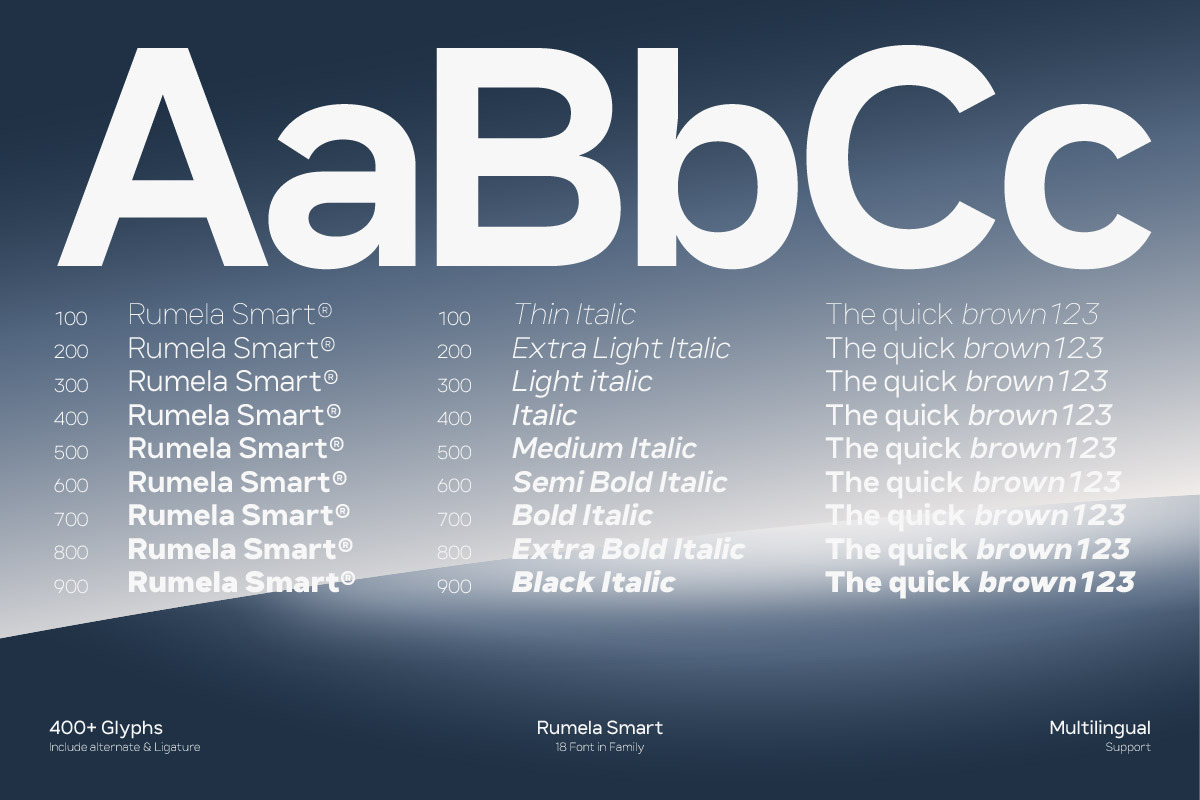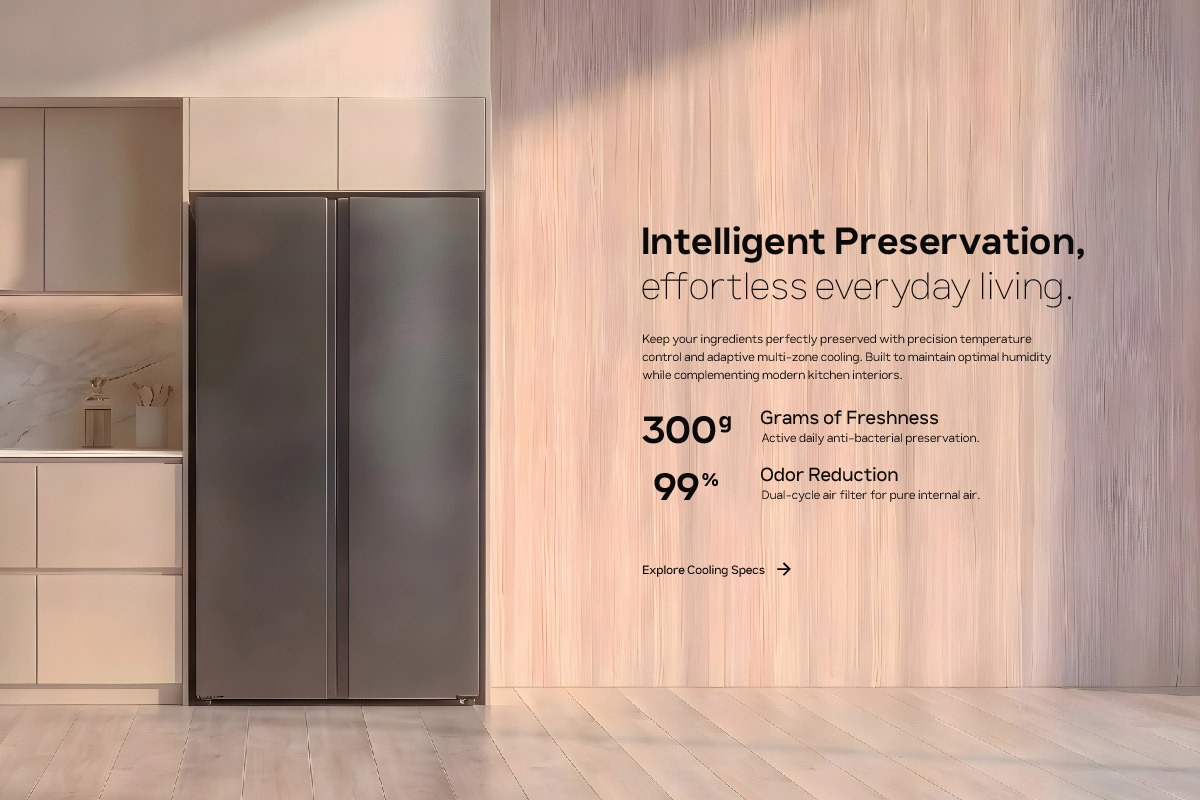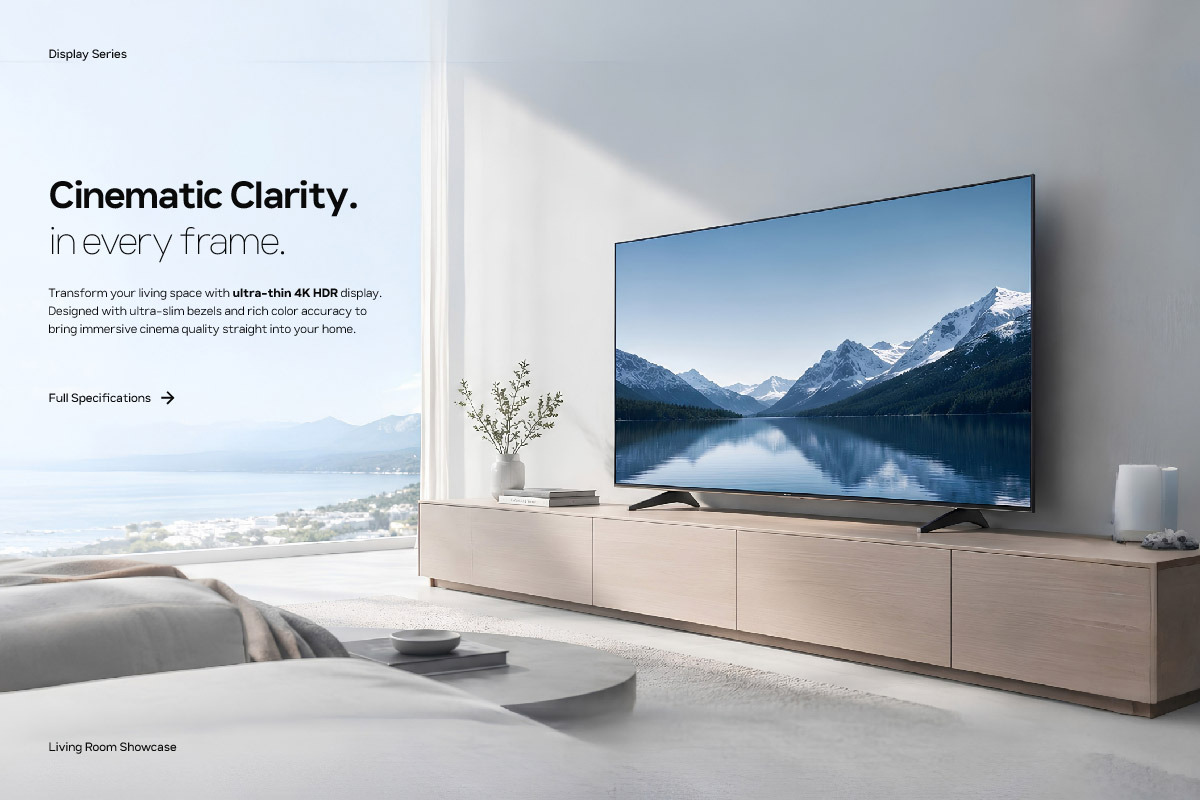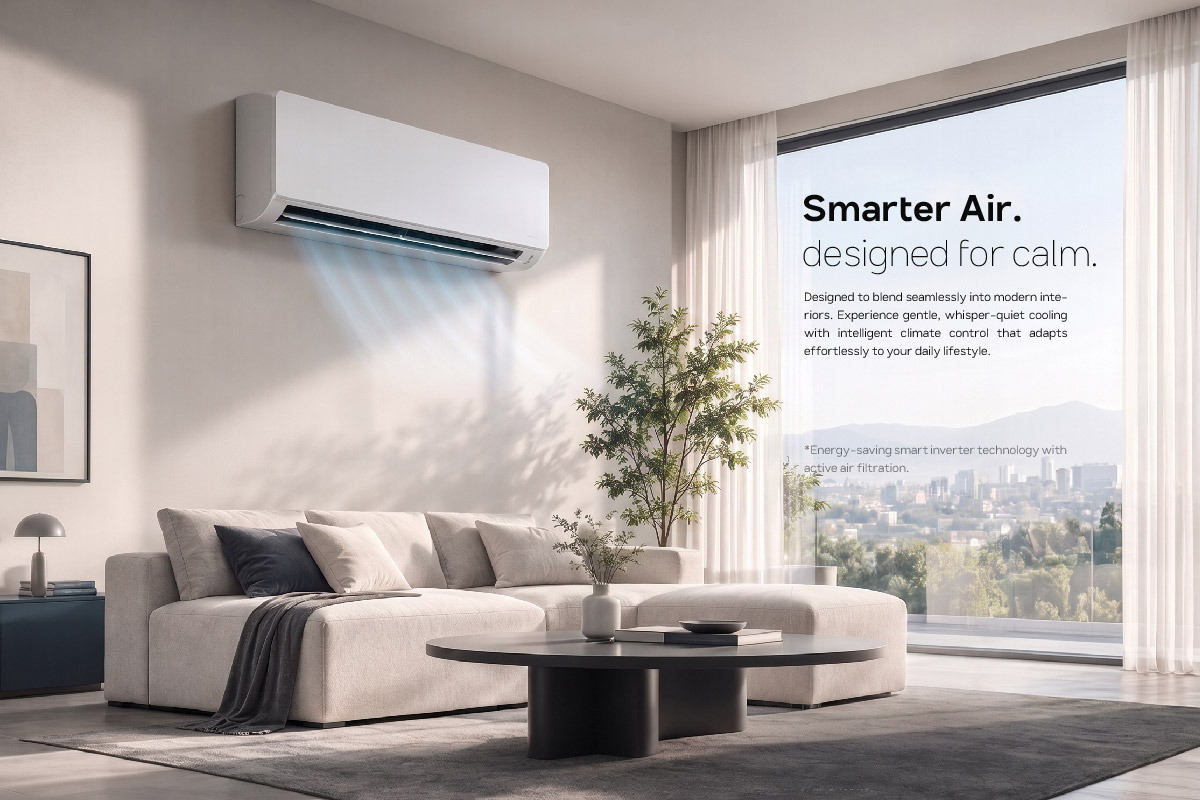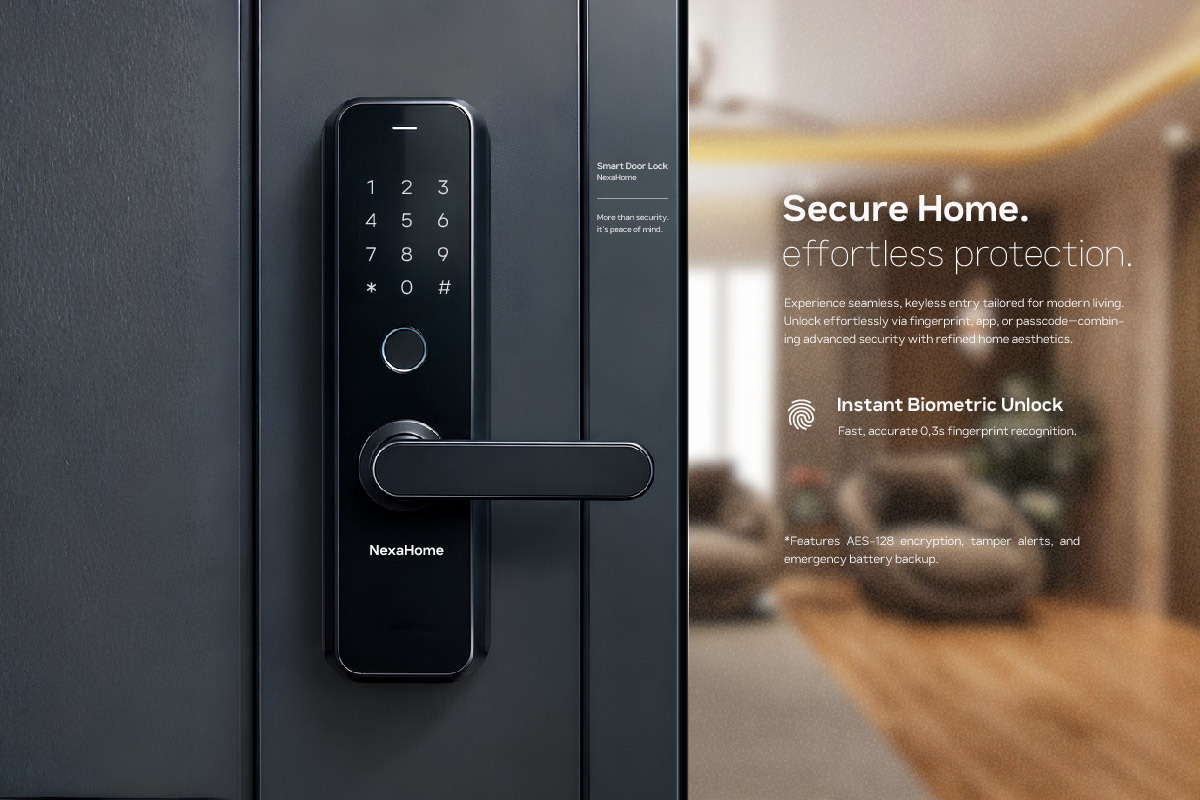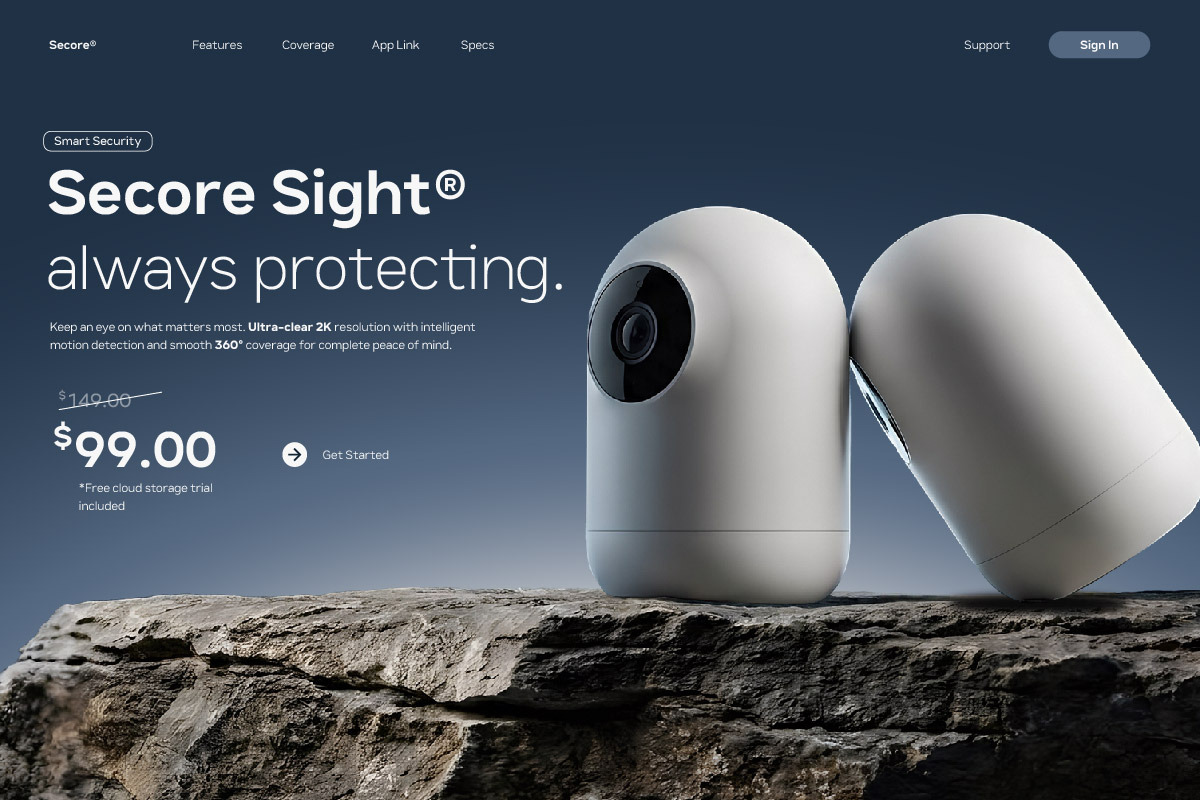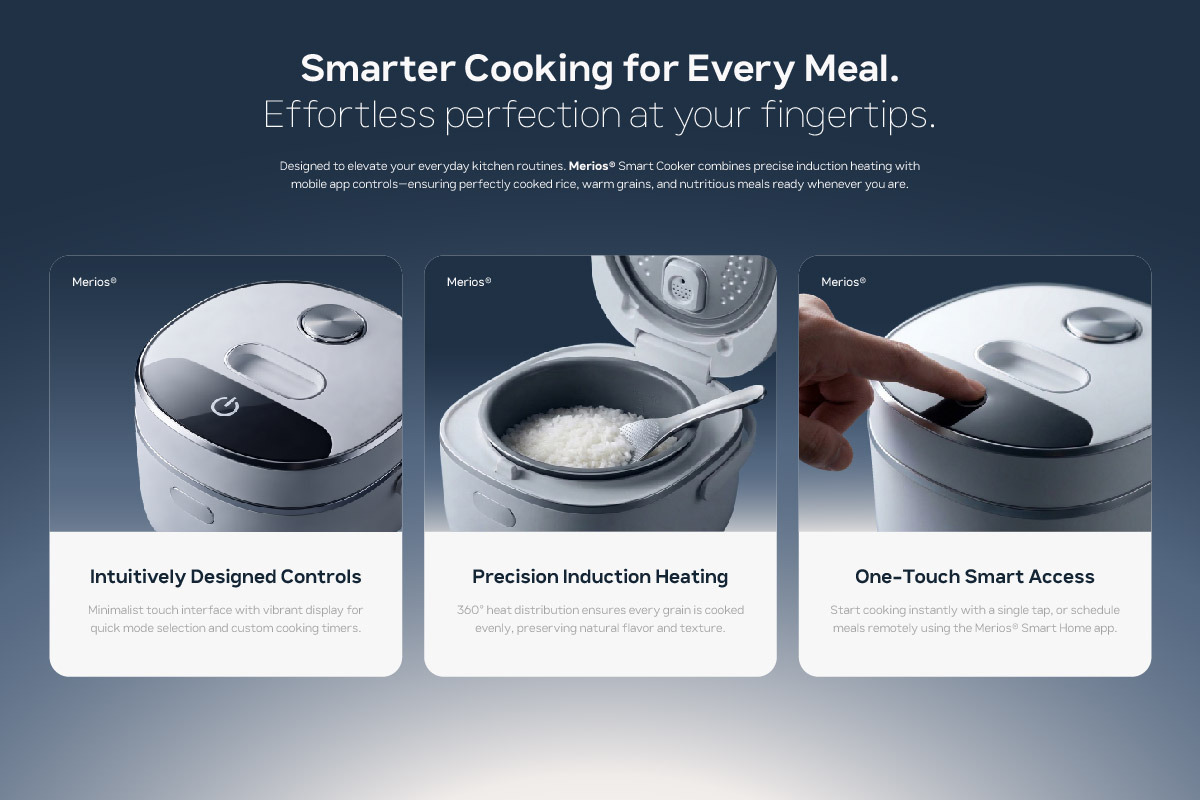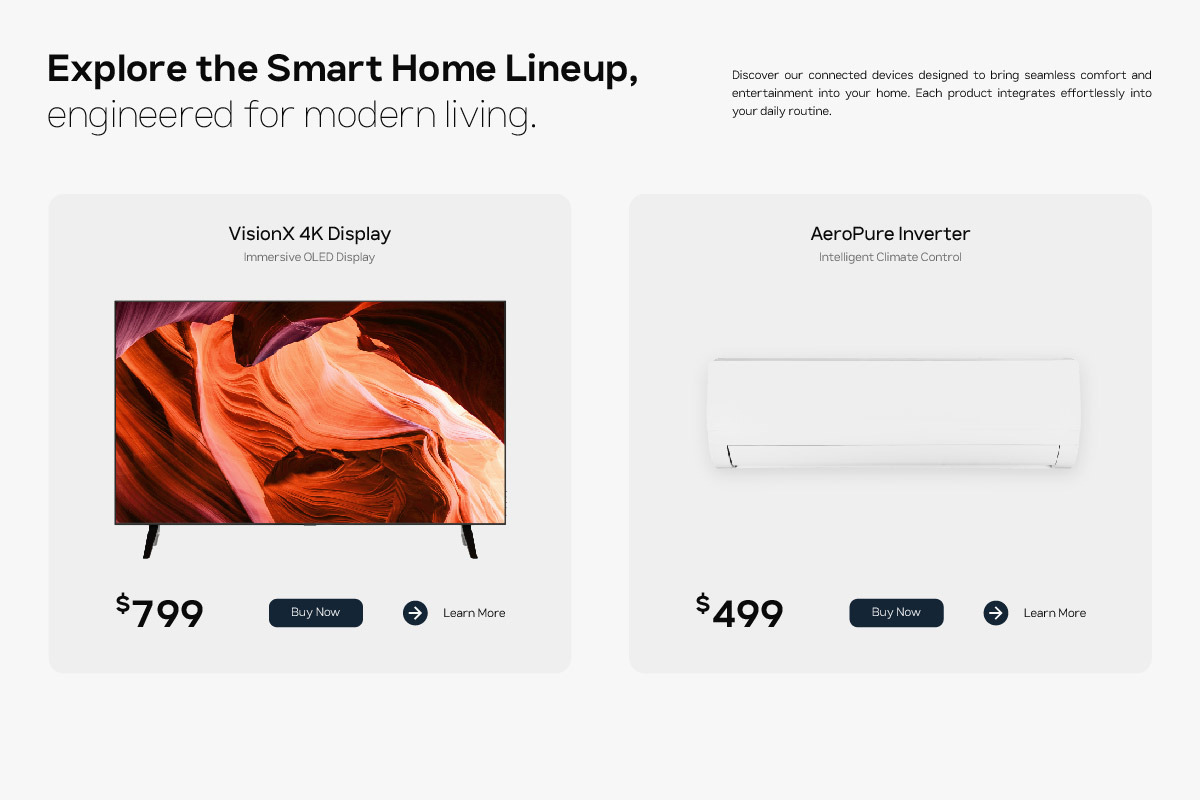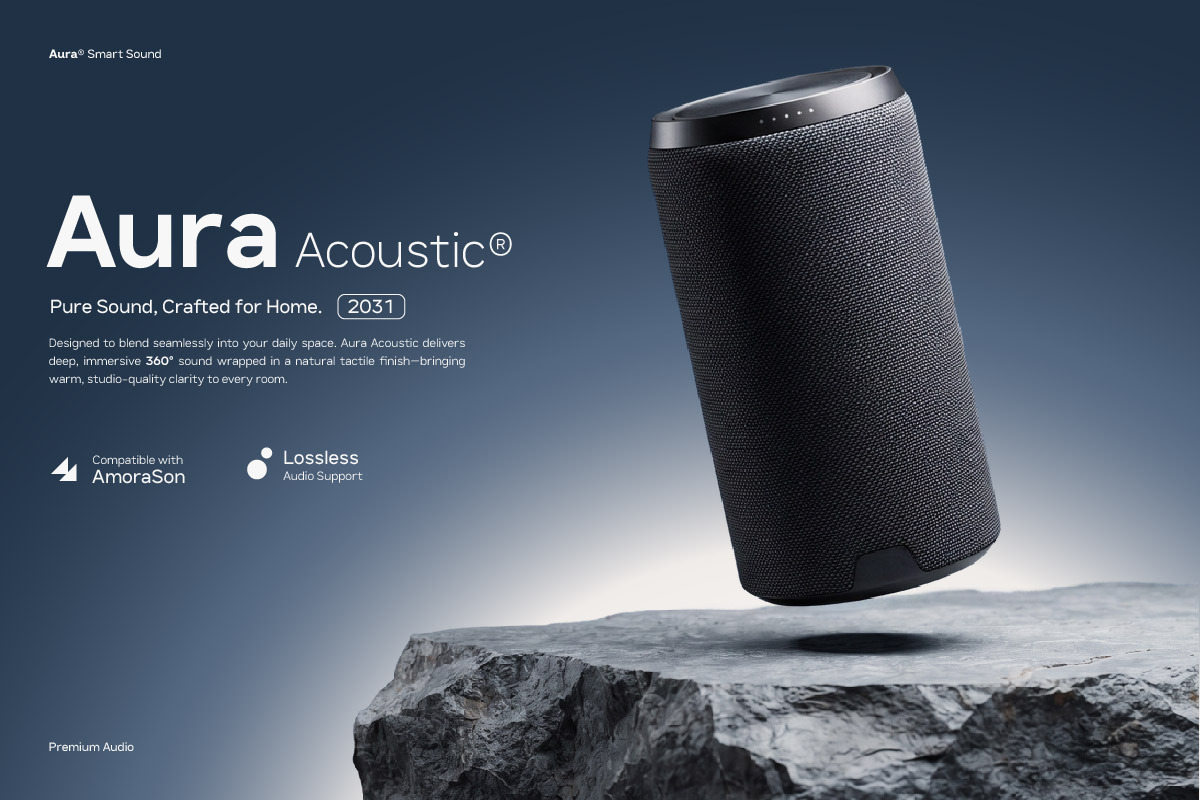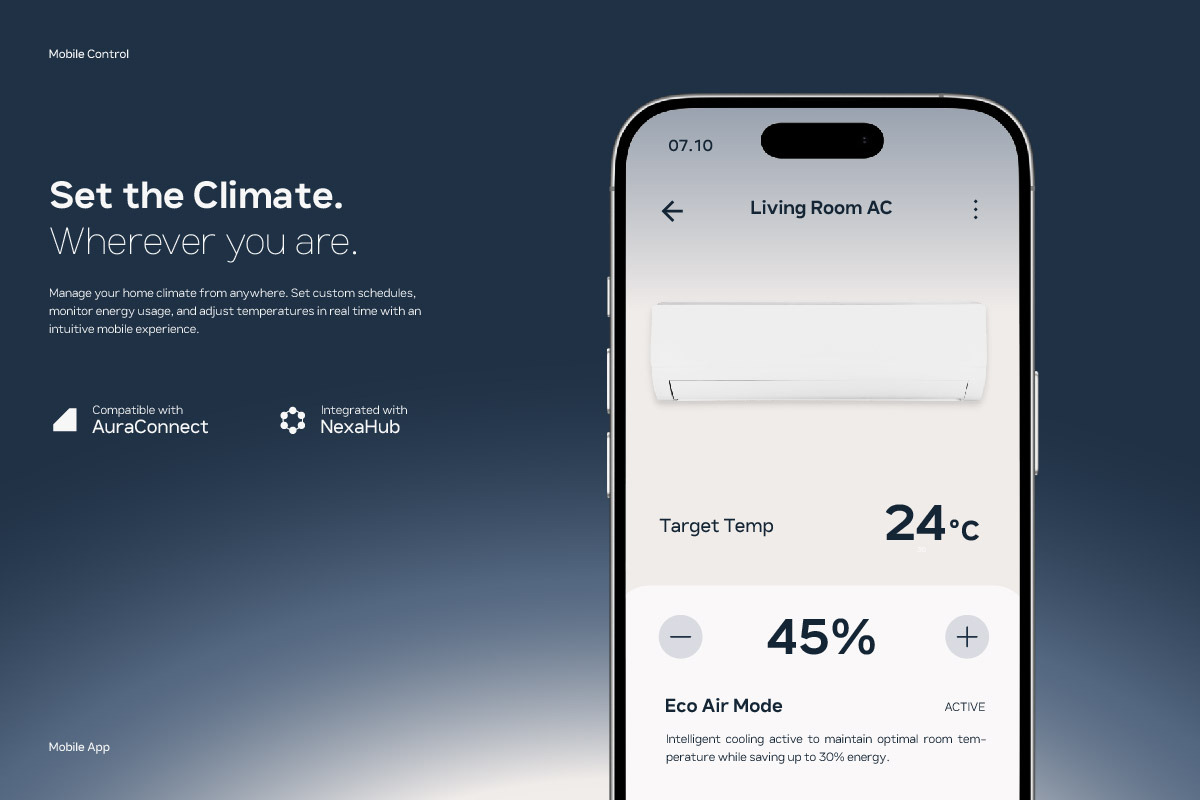
Rumela Smart - Clean Modern Sans
Rumela Smart is a clean modern sans serif font family designed for contemporary branding, technology, smart living, and digital products. Its sleek and minimal character gives your designs a professional, intelligent, and approachable look, making it a great choice for modern brands and creative projects.
With 18 fonts in the family, 400+ glyphs, alternate characters, ligatures, and multilingual support, Rumela Smart gives you the flexibility to create consistent and polished typography across different design needs. Its balanced letterforms work beautifully for both display and everyday applications.
Perfect for smart home branding, IoT products, connected devices, technology startups, automation apps, security systems, smart appliances, UI/UX design, packaging, websites, and modern advertising. Rumela Smart brings a clean technological feel while remaining highly readable and versatile.
- Multilingual Support: Fully supports 85+ languages, including:
Afrikaans, Albanian, Asu, Basque, Bemba, Bena, Breton, Catalan, Chiga, Cornish, Croatian, Czech, Danish, Dutch, Embu, English, Esperanto, Estonian, Filipino, Finnish, French, Friulian, Galician, Gusii, Hungarian, Indonesian, Irish, Italian, Kabuverdianu, Kalenjin, Kamba, Kikuyu, Kinyarwanda, Latvian, Lithuanian, Lower Sorbian, Luo, Luxembourgish, Luyia, Machame, Makhuwa-Meetto, Makonde, Malagasy, Maltese, Manx, Meru, Morisyen, North Ndebele, Norwegian Bokmål, Norwegian Nynorsk, Nyankole, Oromo, Polish, Portuguese, Quechua, Romanian, Romansh, Rombo, Rundi, Rwa, Samburu, Sango, Sangu, Scottish Gaelic, Sena, Serbian, Shambala, Shona, Slovak, Slovenian, Soga, Somali, Spanish, Swahili, Swedish, Swiss German, Taita, Teso, Turkish, Upper Sorbian, Uzbek (Latin), Volapük, Vunjo, Walser, Zulu.